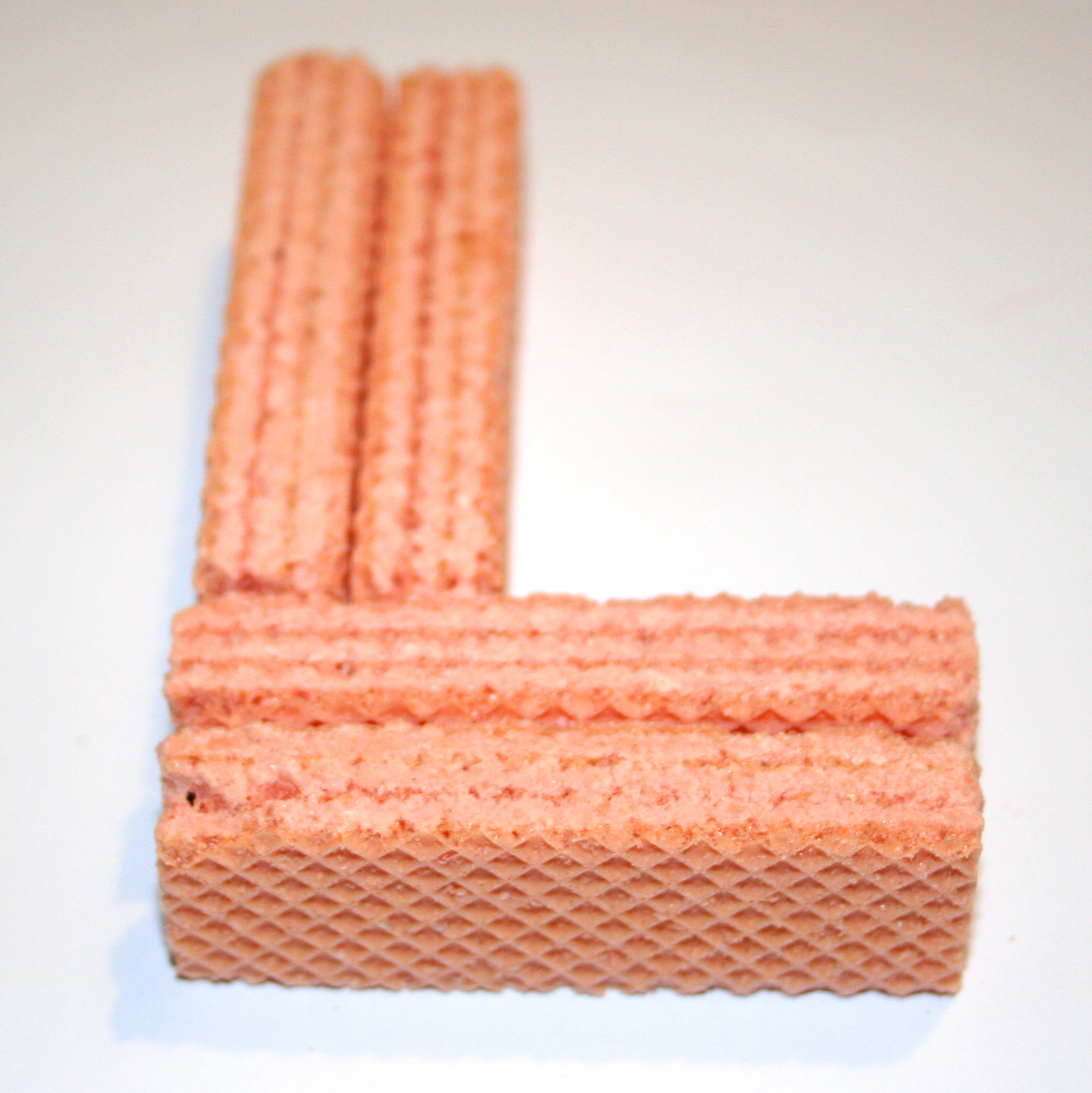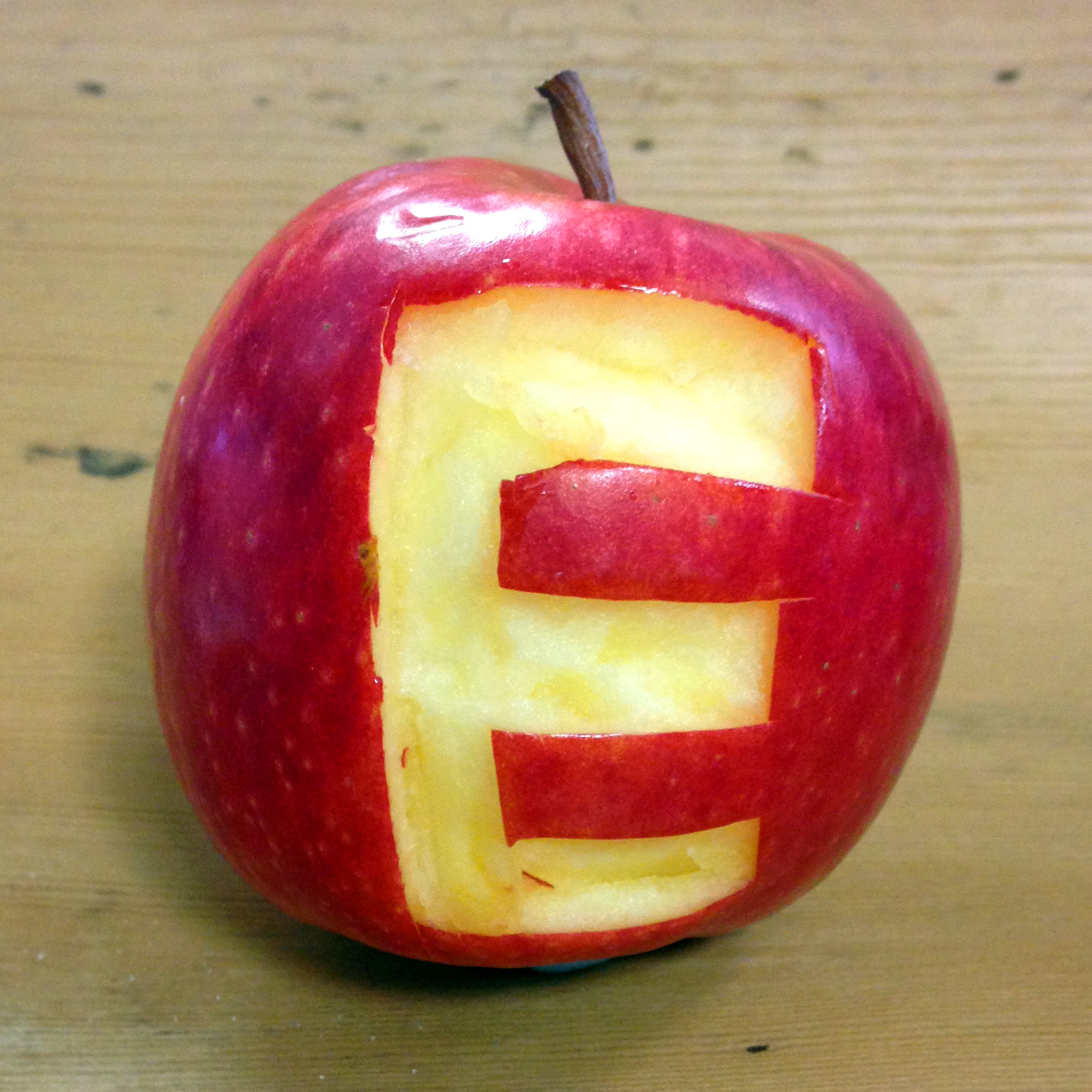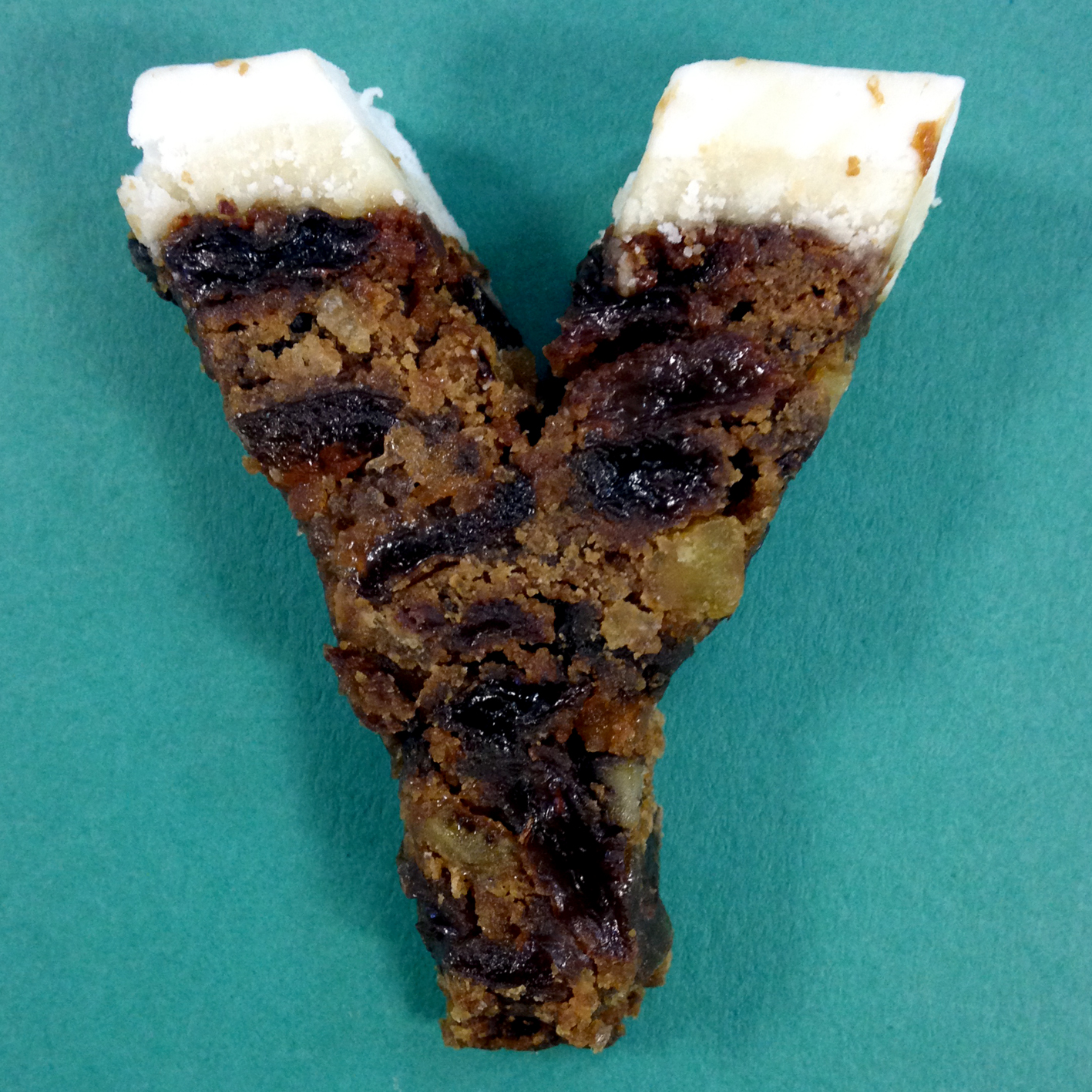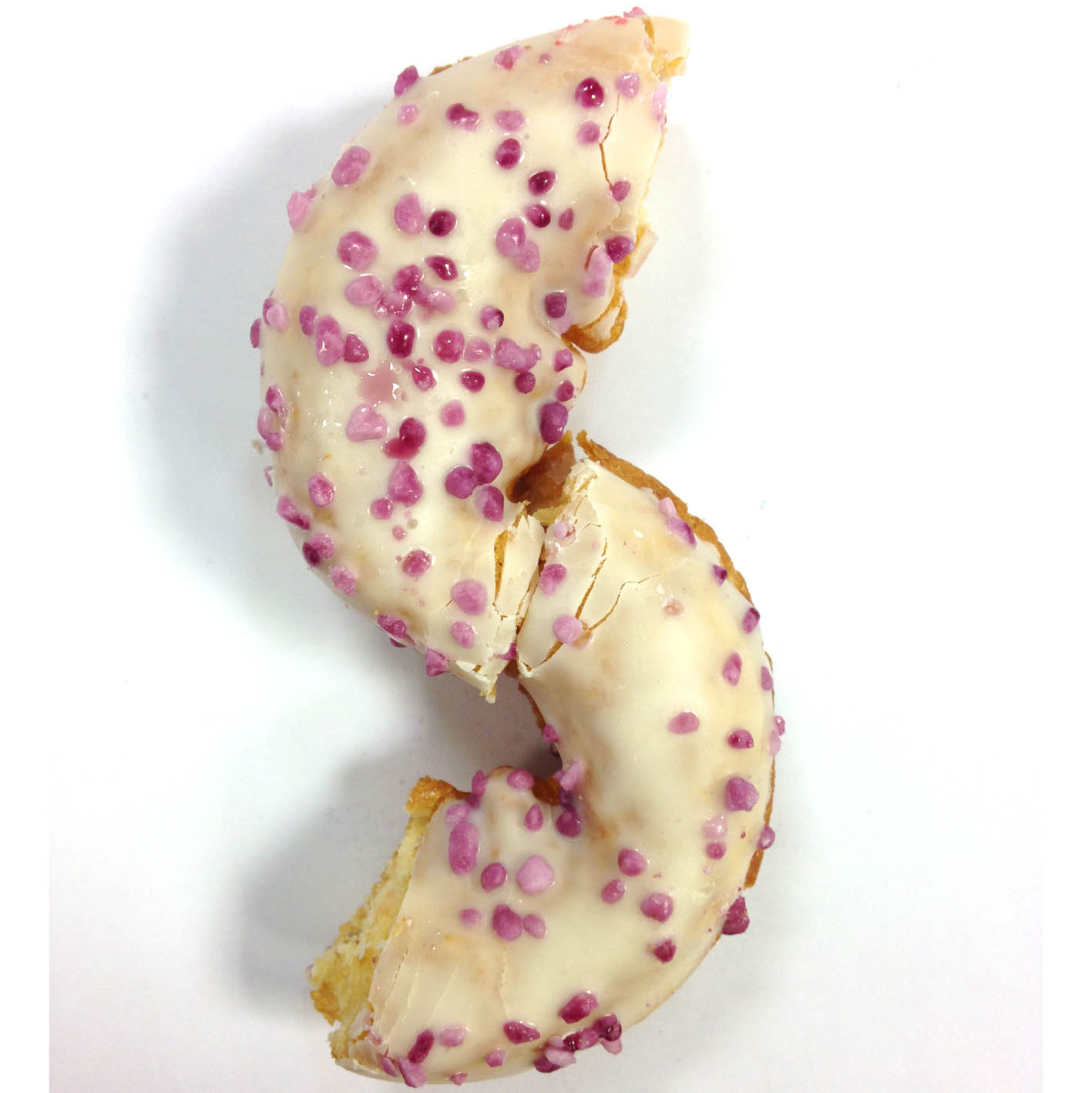
A Type Tasting birthday celebration of edible type
We celebrated Type Tasting’s first birthday with a day of edible type on Friday 14th February. Here’s a selection of the gastronomic typography and lettering created to mark the occasion.
Above: Nathan Dye’s chocolate TYPE cake, Helen Rawlinson’s peas thawing to the occasion, Sarah Hyndman’s edible rye bread Blackletter type “delicious with hummus” and Julie Muaro’s JOY in Breakfast Light, Regular & Extra Jam.
Julie Mauro
Love & kisses to eat in 5 languages
A delicious series of typographic cookies and sweets made by Andreja Brulc and inspired by the ‘besos’ pan dulce eaten in Mexico on Valentine’s Day. “I made ‘love and kisses in five languages: English, Spanish, Slovene, Italian and German” she explains.
‘Edible Type Friday’ eat letters & celebrate Type Tasting’s first birthday
Edible Type Friday on Feb 14th
To celebrate Type Tasting’s first birthday you’re invited to share your love of typography by taking edible type to work. Please photograph it before (or while) it’s being eaten.
It would also be great to see any ‘making of’ photos if you bake or create the type yourself. Cake? Jelly? Sweets from the local sweetshop? …What would a font taste like?